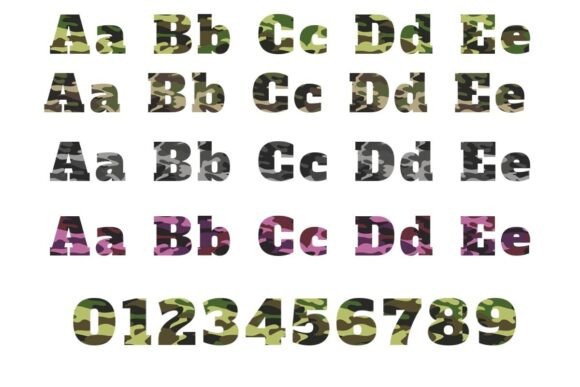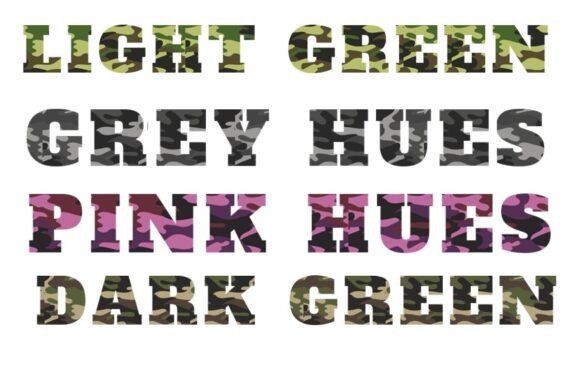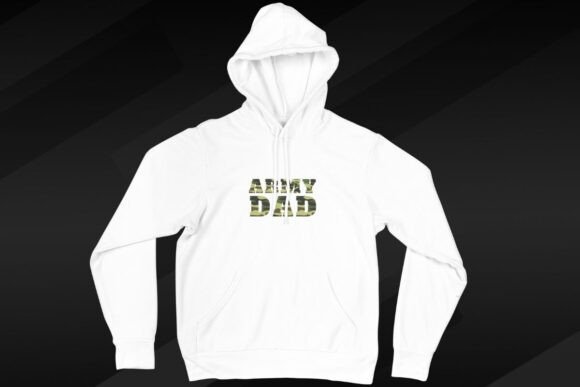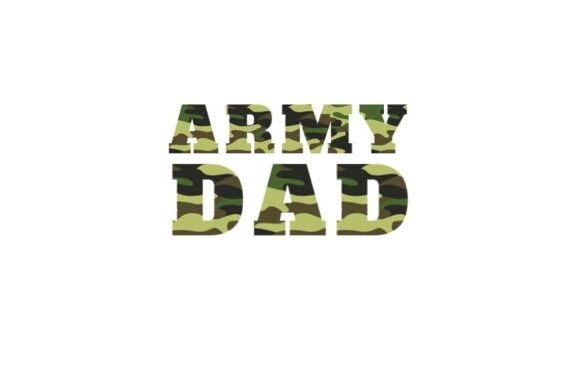
Unleash Your Creativity with Camouflage Font: A Game-Changer for Designers and Crafters
Are you tired of using the same old fonts in your designs? Do you want to add a bold, rugged, and creative flair to your projects? Look no further than the Camouflage Font Bundle, featuring four stunning OpenType-SVG color fonts that are sure to take your designs to the next level.
What is a Camouflage Font?
A camouflage font is a type of font that features rich, textured designs that mimic the patterns of camouflage. These fonts are perfect for designers and crafters who want to add a unique and eye-catching element to their projects. With the Camouflage Font Bundle, you get four different fonts to choose from, each with its own unique style and texture.
Key Features of the Camouflage Font Bundle
- Four Stunning Fonts: The Camouflage Font Bundle includes four different OpenType-SVG color fonts, each with its own unique camouflage texture.
- No Overlays or Clipping Masks Needed: The fonts are embedded with rich textures, so you don’t need to worry about using overlays or clipping masks to achieve the desired effect.
The Camouflage Font Bundle is perfect for designers and crafters who want to add a bold, rugged, and creative flair to their projects. Here are just a few benefits of using this font:
- Add Visual Interest: The camouflage texture adds a unique and eye-catching element to your designs, making them stand out from the crowd.
- Save Time: With no need for overlays or clipping masks, you can save time and focus on the creative aspects of your project.
- Increase Versatility: The four different fonts included in the bundle give you plenty of options for different projects and designs.
Tips for Using the Camouflage Font Bundle
Here are a few tips for getting the most out of the Camouflage Font Bundle:
- Experiment with Different Fonts: Try out each of the four fonts to see which one works best for your project.
- Play with Color: The camouflage texture is available in a range of colors, so don’t be afraid to experiment and find the perfect hue for your design.
- Use it for a Variety of Projects: The Camouflage Font Bundle is perfect for a range of projects, from greeting cards and invitations to posters and social media graphics.